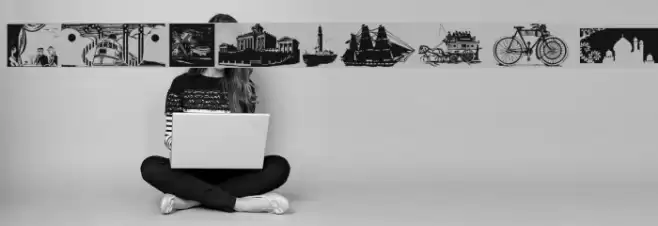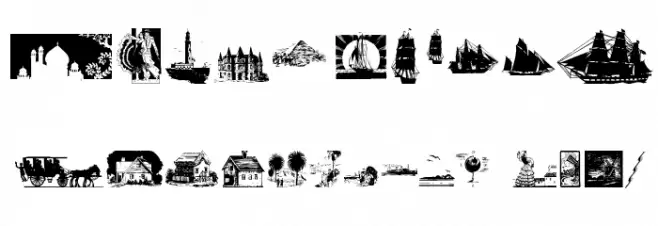
TravelEtc Font
TravelEtc Description
This is not a valid font. The image contains a series of travel-themed illustrations, depicting various modes of transportation and landmarks. These include bicycles, carriages, ships, and iconic buildings, all rendered in a detailed, monochromatic style. The illustrations are arranged in rows, each showcasing different scenes and elements related to travel and exploration. The overall aesthetic is reminiscent of vintage travel posters or postcards, capturing a sense of adventure and nostalgia.
The image features travel-themed illustrations, not a font from Uncategorized fonts.
- Proposed Projects: These illustrations could be used for travel brochures, vintage-themed posters, or educational materials about historical transportation.
- Overall Style: Vintage
- Use Case: Illustrations, Posters, Brochures